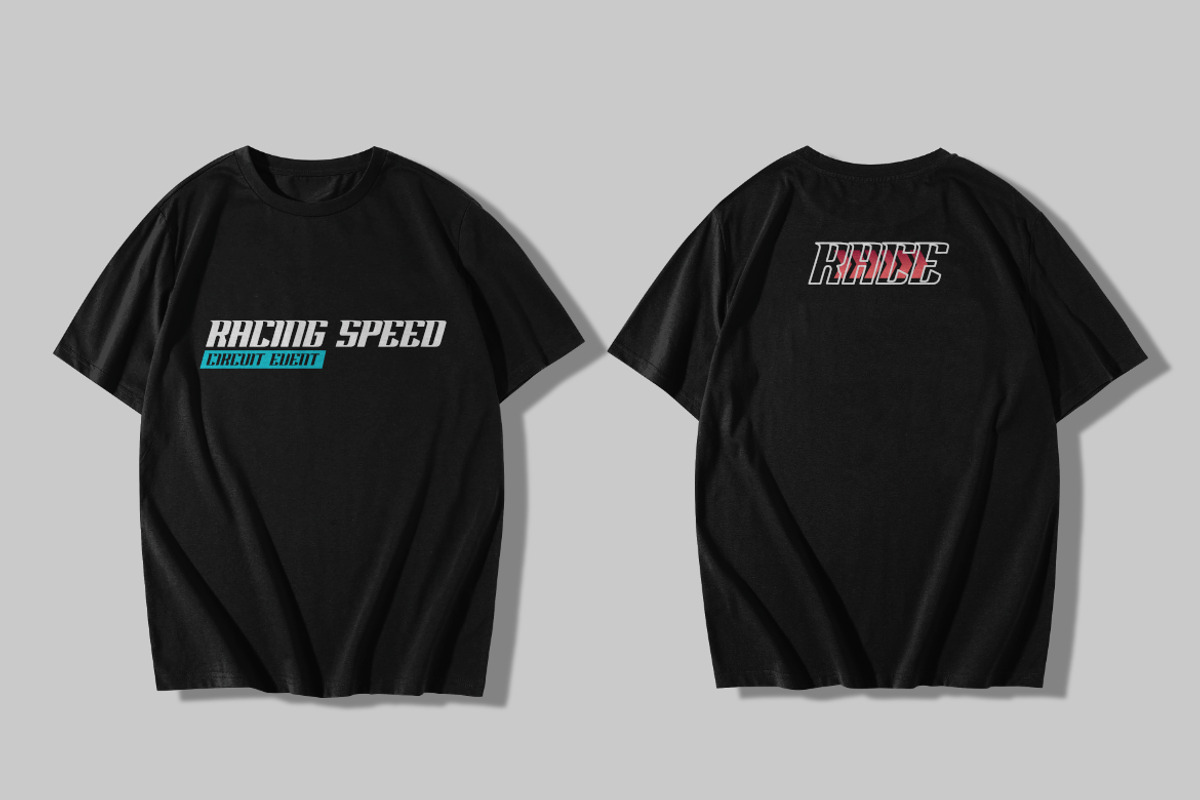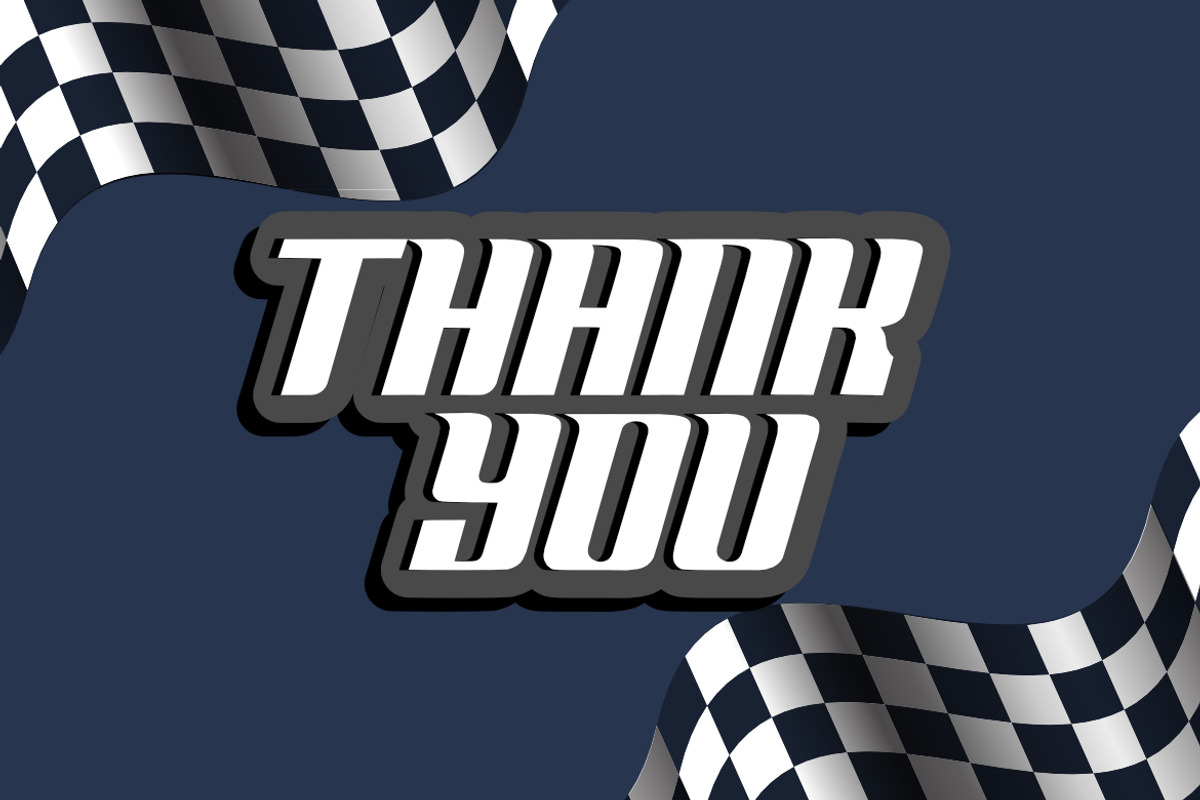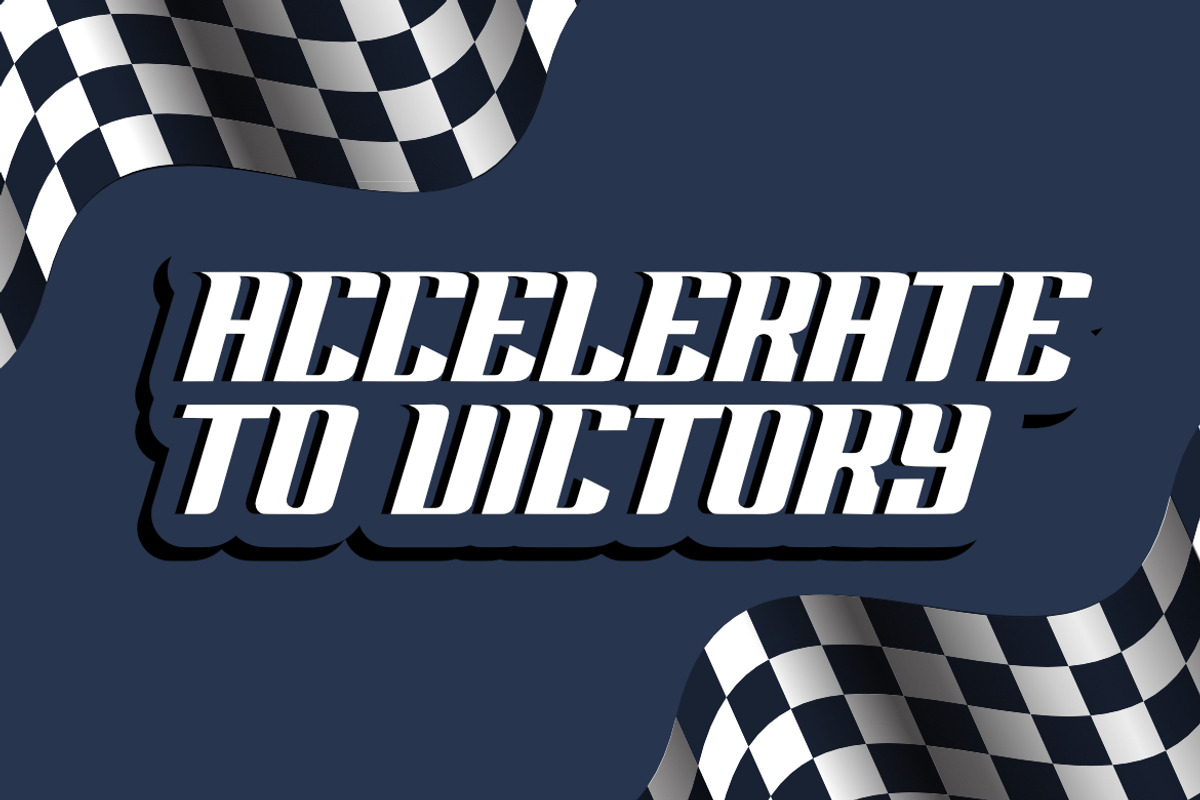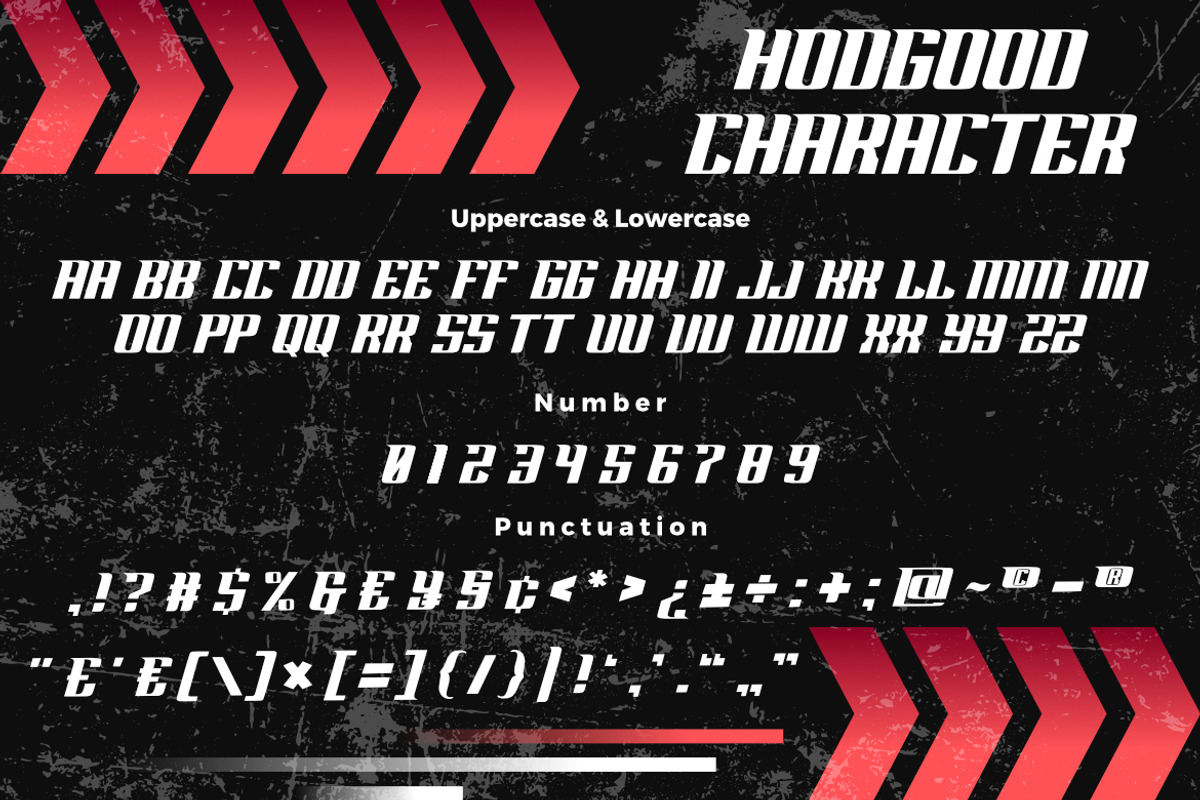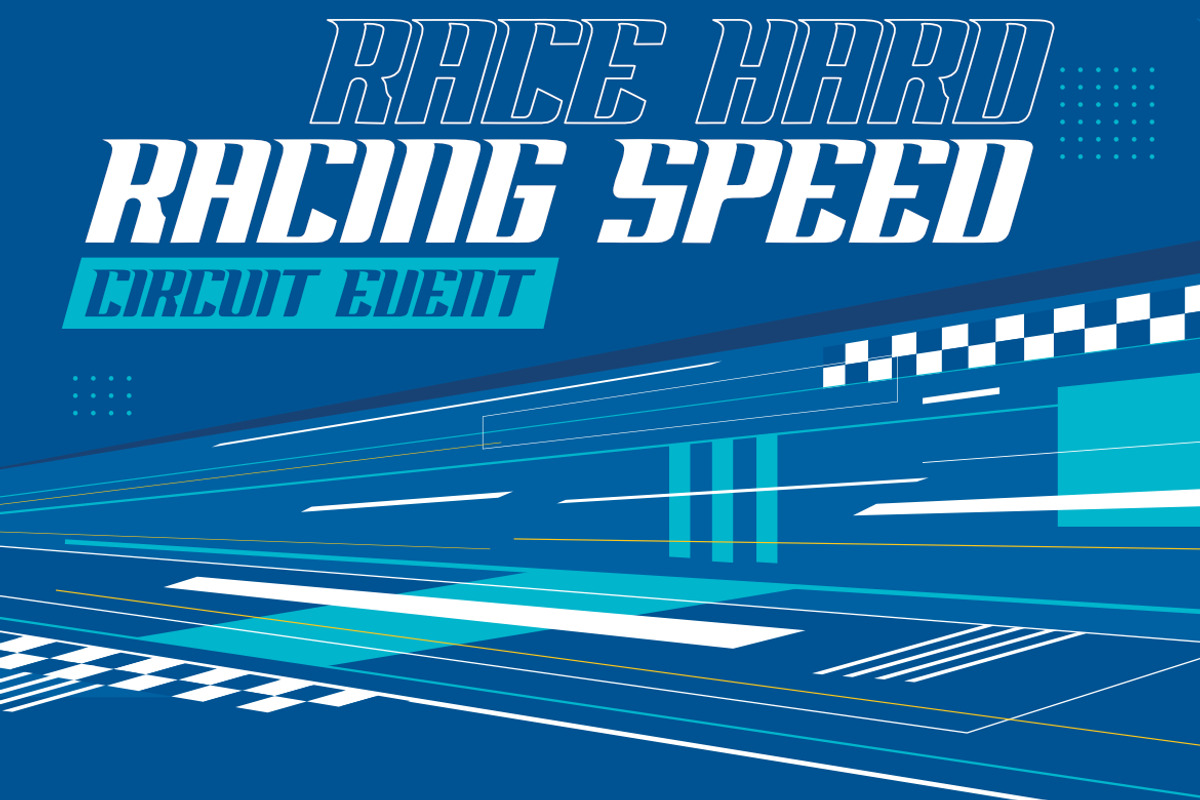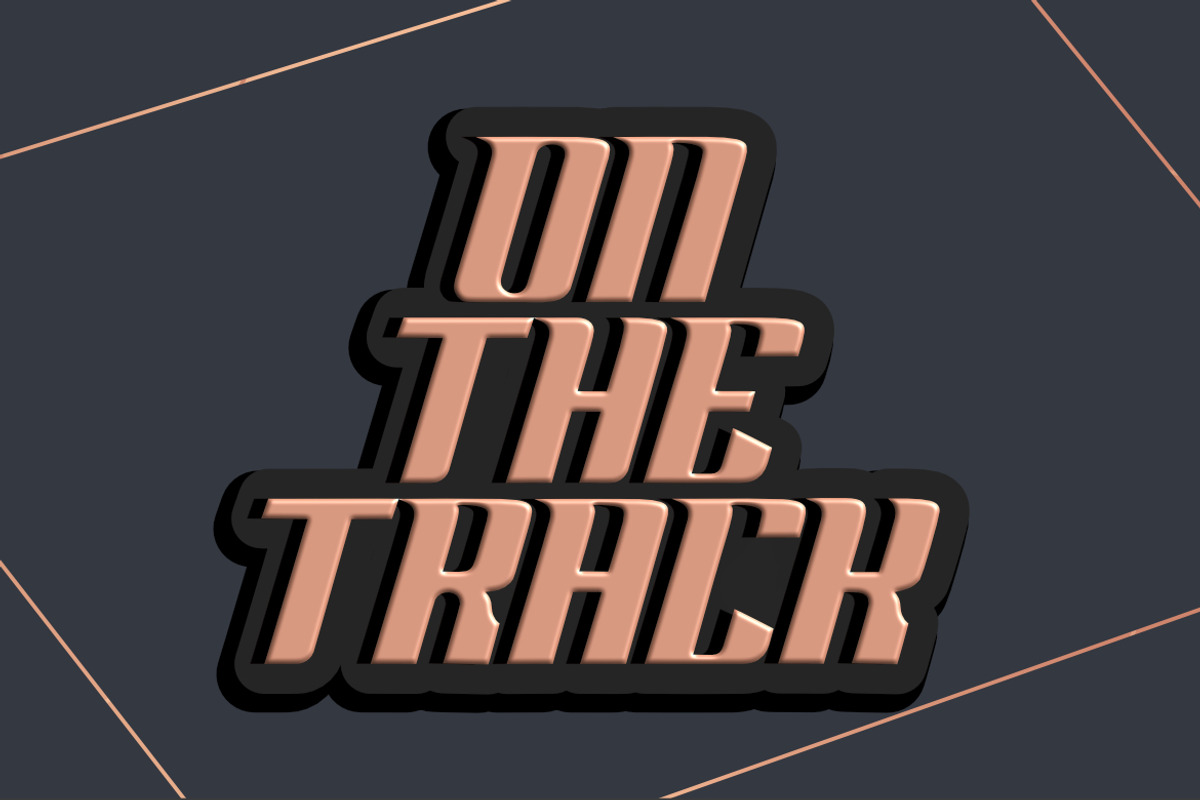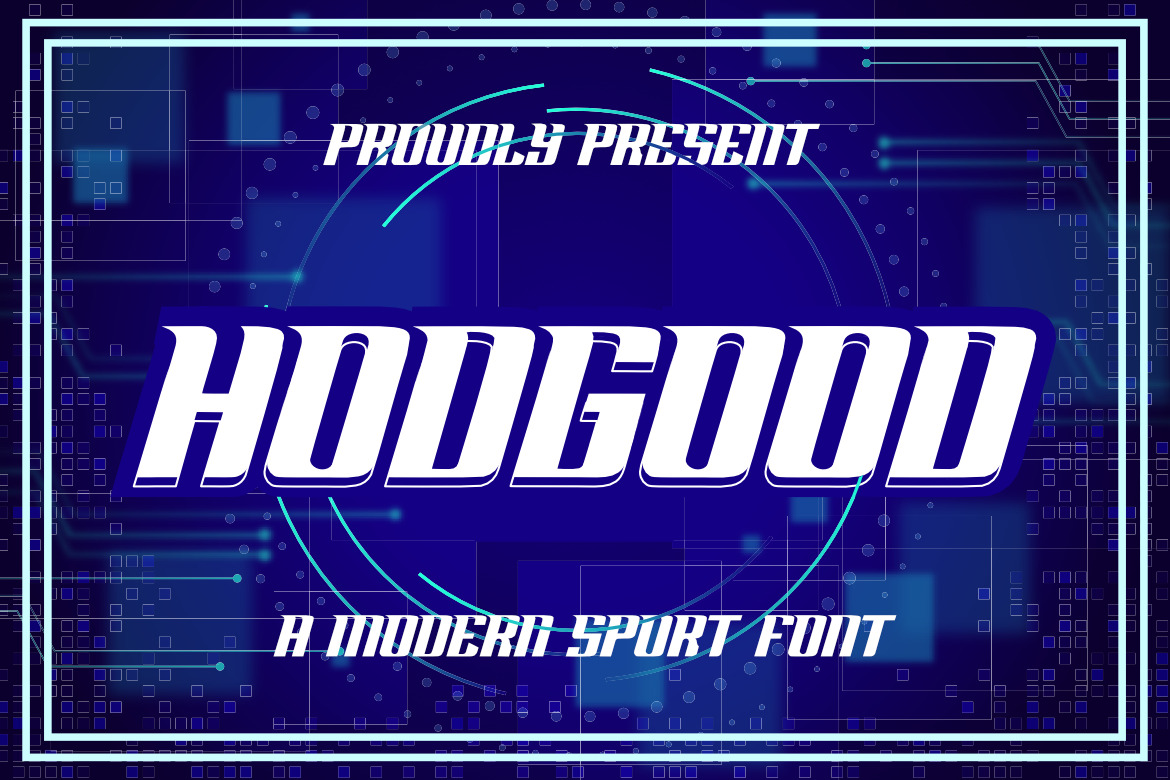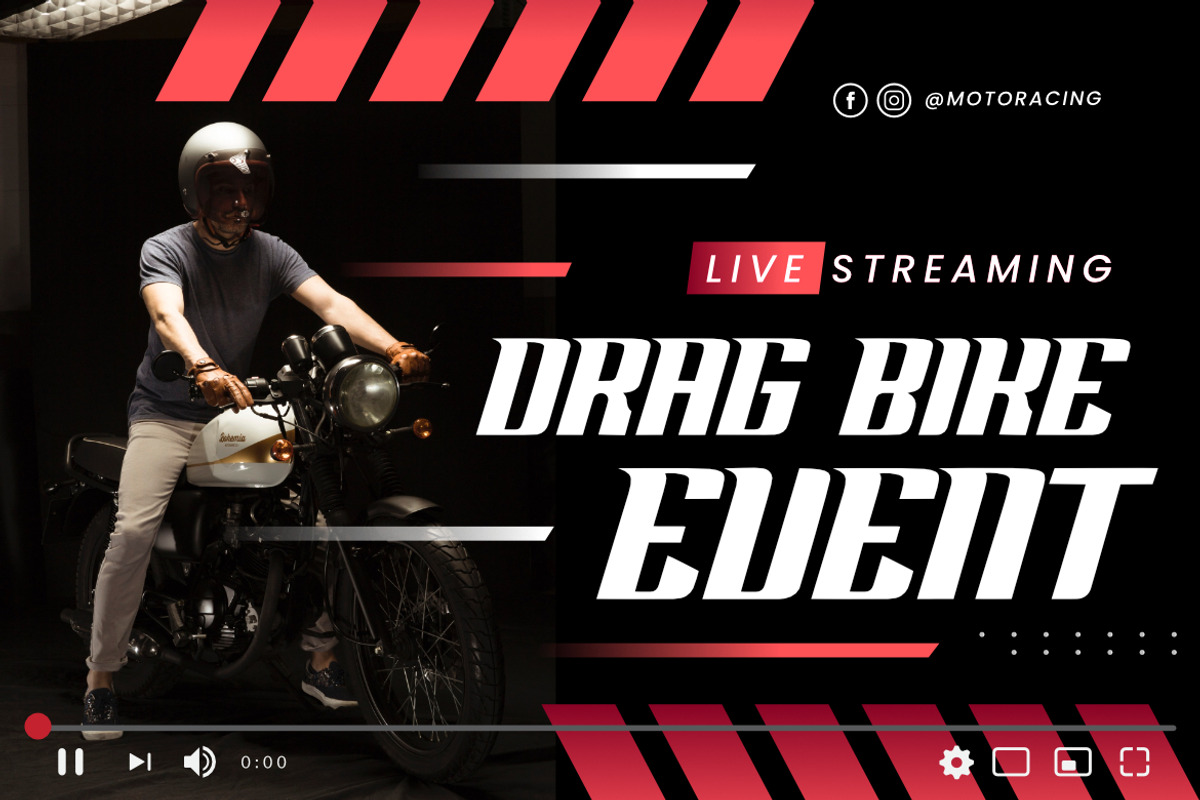
Hodgood a Modern Sport Font
HODGOOD a Modern Sport Font, This font is made with a high premium quality level which you can use as flyers, quotes, posters, banners, packaging, merchandise, logotypes and much more.